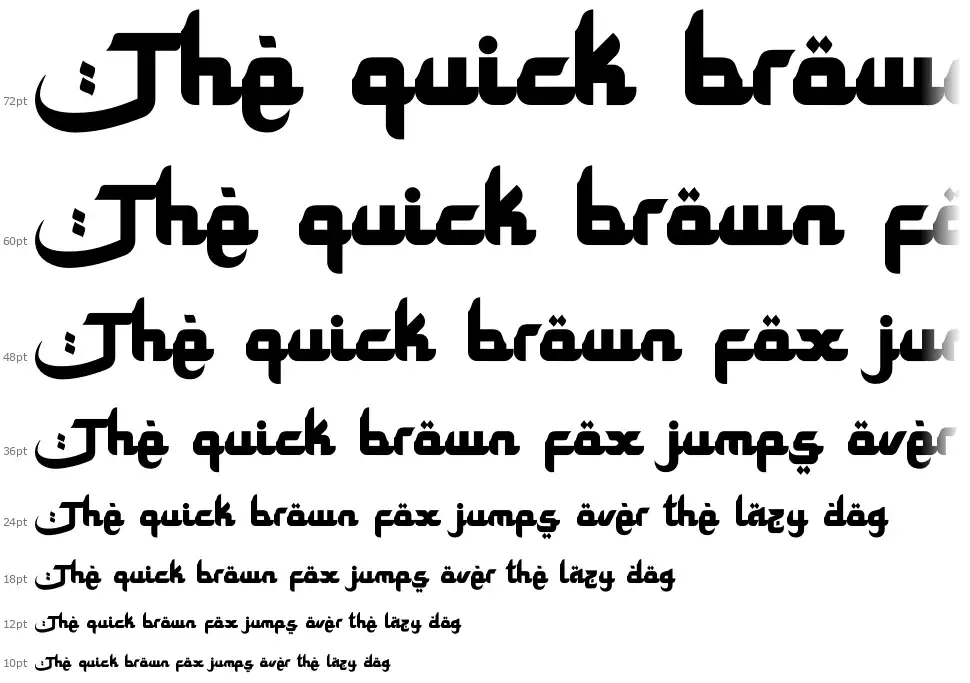
Special Ramadhan Font . Download and install the special ramadhan font by nurf designs. Special ramadhan is a show font with an arabic style, giving every text written with this font an arabic vibe. Special ramadhan à by nurf designs. Discover the free special ramadhan font at free font download ! Installable on pc, mac, linux, ios, and android platforms. In foreign look > arabic. ️ customize your own preview on ffonts.net to make sure it`s. Every font is free to download! The special ramadhan font has been downloaded 17,582 times. Perfect for design projects requiring middle eastern. Download special ramadhan font · free for personal use · by installing or using this font, you are agree to the product usage. Click to find the best 82 free fonts in the ramadhan style. Download our free ramadan fonts and add a festive touch to your designs. The special ramadhan font contains over 20 beautifully designed characters. 218,659 downloads (76 yesterday) 2 comments free for personal use.
Ramadan Kareem Arabic Calligraphy Greeting Card Design 19017638 Vector Special Ramadhan Font ️ customize your own preview on ffonts.net to make sure it`s. Special ramadhan is a show font with an arabic style, giving every text written with this font an arabic vibe. Download special ramadhan font · free for personal use · by installing or using this font, you are agree to the product usage. Special ramadhan à by nurf designs.. Special Ramadhan Font.
Tulisan Gaya Vintage Ramadhan Mubarak, Tulisan, Tipografi, Puasa PNG Special Ramadhan Font Every font is free to download! Download special ramadhan font · free for personal use · by installing or using this font, you are agree to the product usage. Click to find the best 82 free fonts in the ramadhan style. Special ramadhan is a show font with an arabic style, giving every text written with this font an arabic. Special Ramadhan Font.
Special Ramadhan Font Download Free for Desktop & font Special Ramadhan Font Discover the free special ramadhan font at free font download ! Download special ramadhan font · free for personal use · by installing or using this font, you are agree to the product usage. Special ramadhan à by nurf designs. Special ramadhan is a show font with an arabic style, giving every text written with this font an arabic vibe.. Special Ramadhan Font.
Ramadhan Art Font, Ramadhan, Ramadhan Karim PNG Transparent Image and Special Ramadhan Font Download and install the special ramadhan font by nurf designs. The special ramadhan font has been downloaded 17,582 times. Special ramadhan is a show font with an arabic style, giving every text written with this font an arabic vibe. Perfect for design projects requiring middle eastern. Installable on pc, mac, linux, ios, and android platforms. Download special ramadhan font ·. Special Ramadhan Font.
Shiny gold Ramadan Kareem text effect 952497 Vector Art at Vecteezy Special Ramadhan Font Special ramadhan is a show font with an arabic style, giving every text written with this font an arabic vibe. In foreign look > arabic. Installable on pc, mac, linux, ios, and android platforms. Download and install the special ramadhan font by nurf designs. Download our free ramadan fonts and add a festive touch to your designs. Click to find. Special Ramadhan Font.